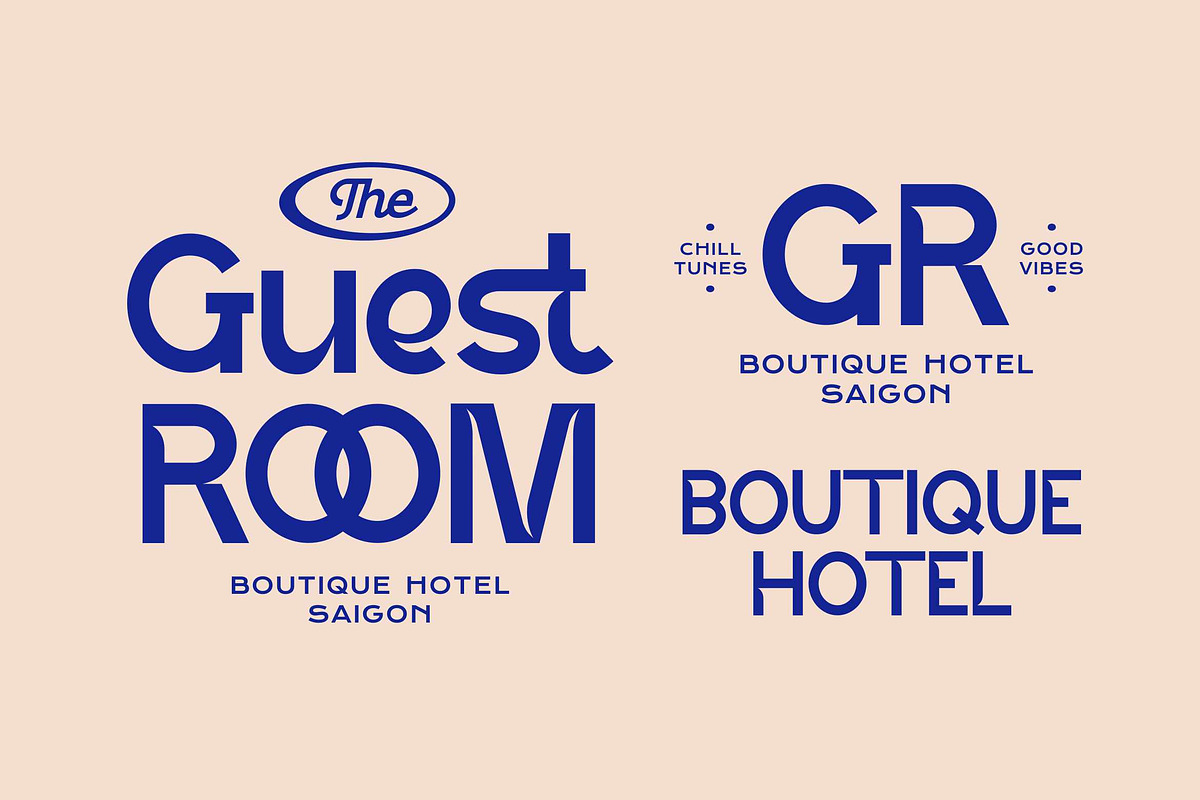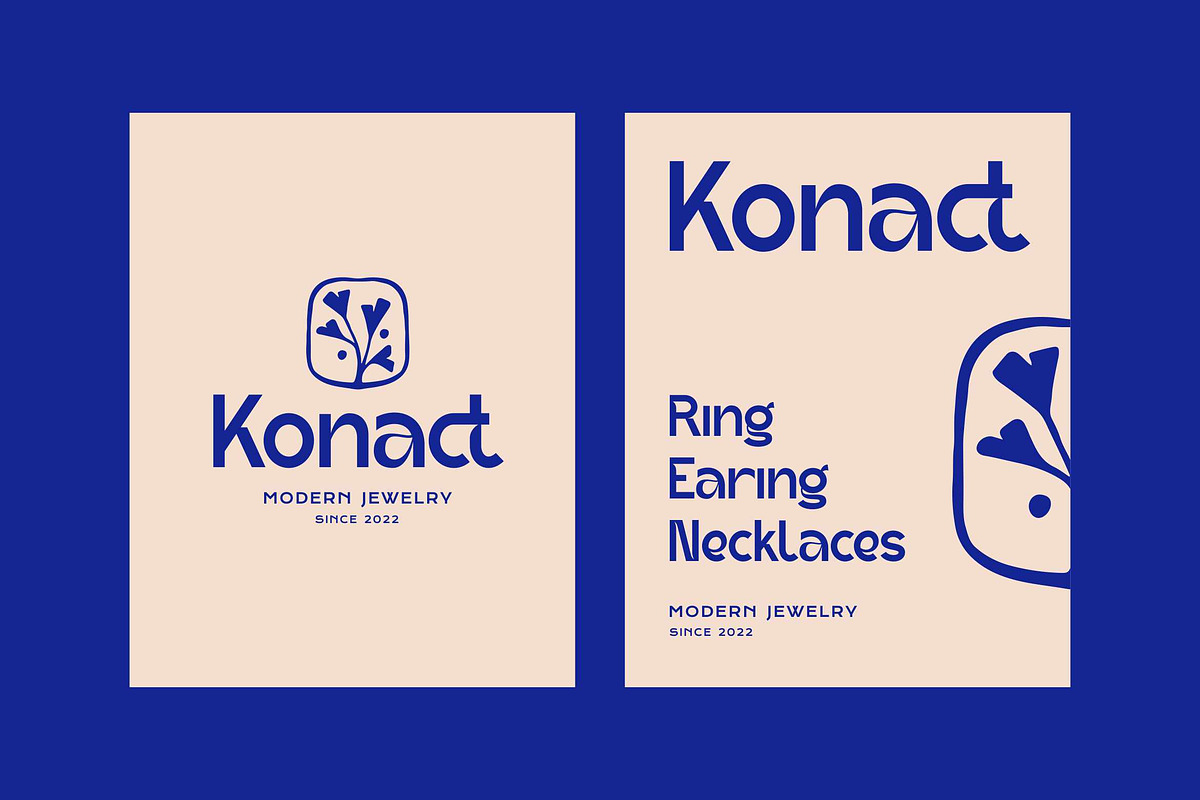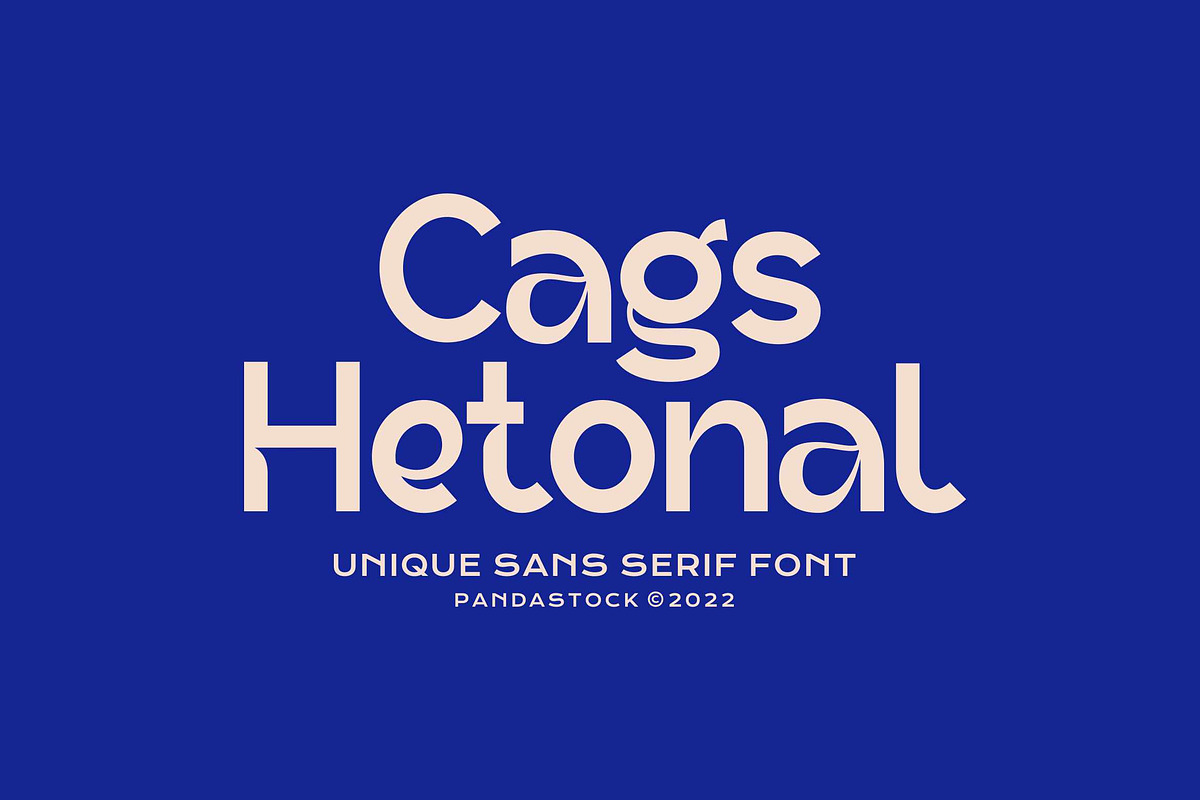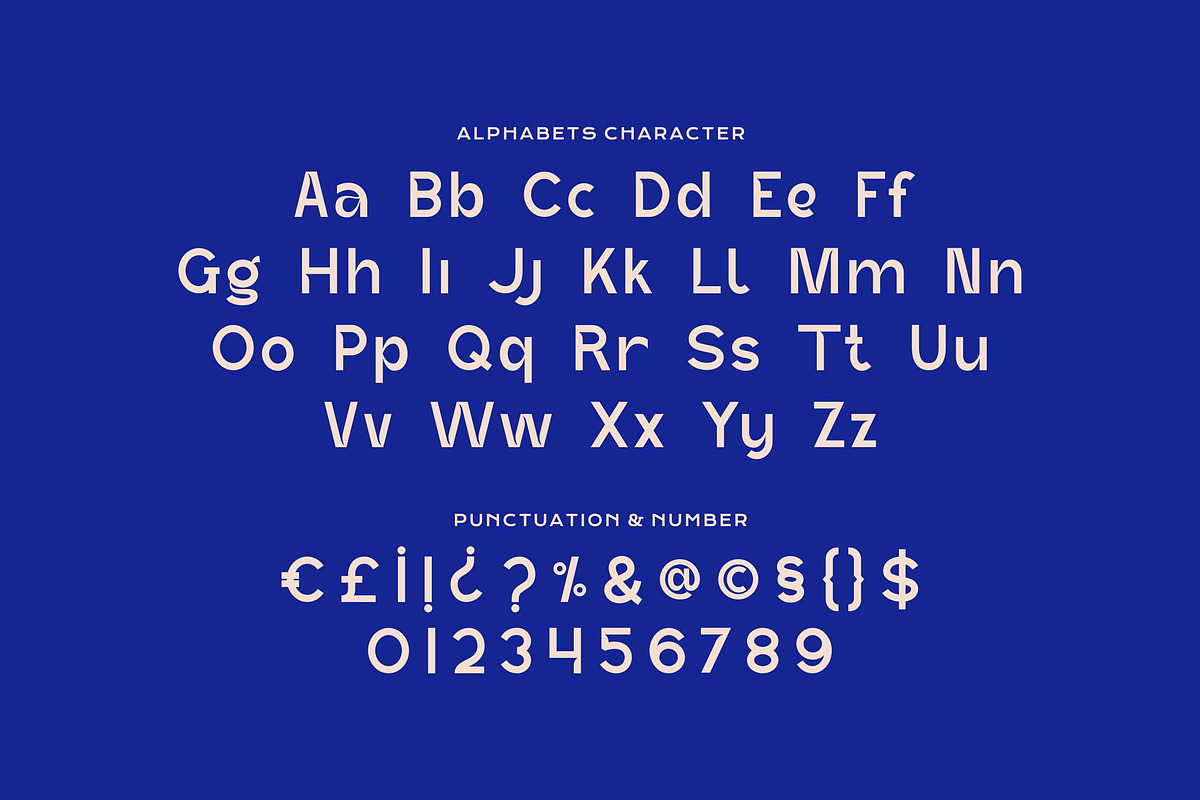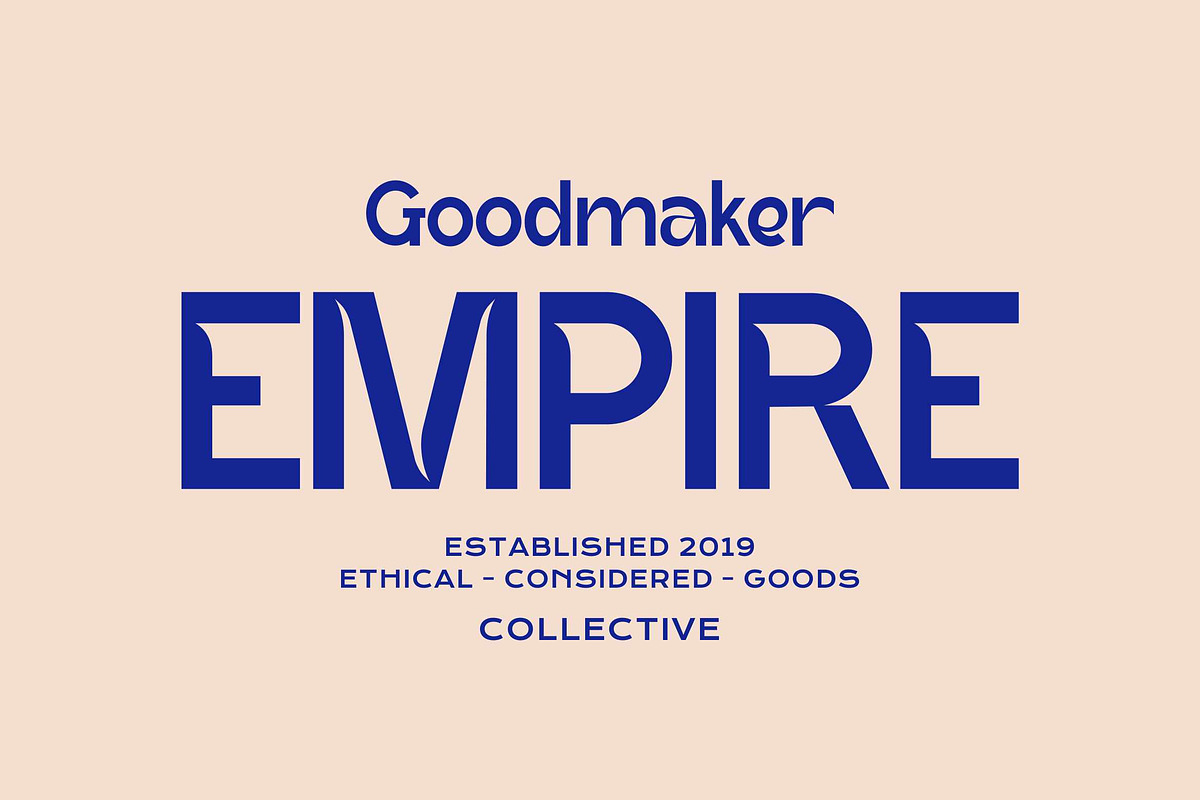
Cags Hetonal - Beautiful Sans Font
Cags Hetonal is a beautifully display typeface that effortlessly blends modern minimalism with a touch of retro charm.
It's strong, clean lines and slightly condensed but impactful structure, it's perfect for headlines, striking logos, and memorable branding. Whether you're designing for a chic boutique hotel, a modern jewelry brand, or an ethical goods collective, Cags Hetonal provides the flexibility and style to elevate your work.
- Uppercase and Lowecase Characters.
- Numerals and Punctuations.
- Alternates and Ligatures.
- Multilingual Support.